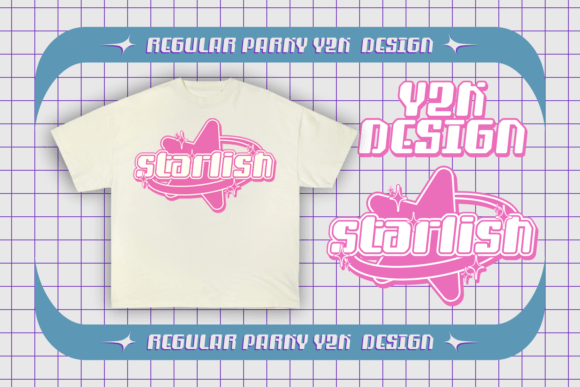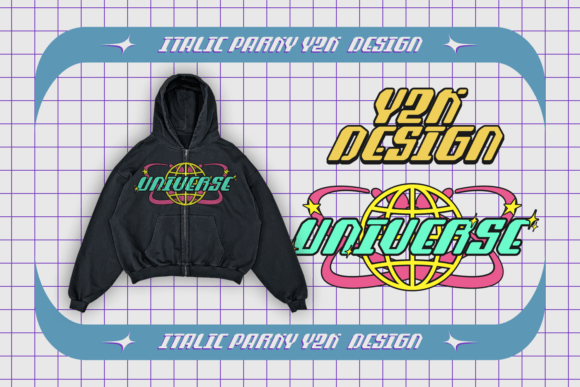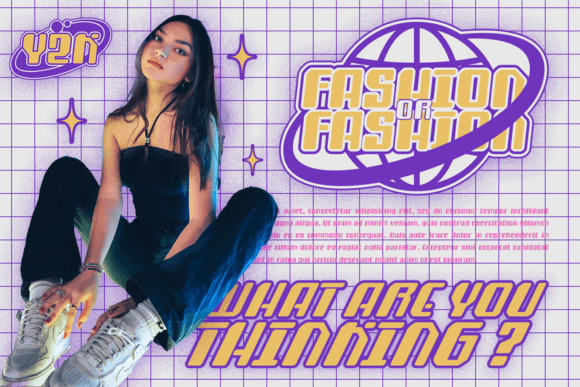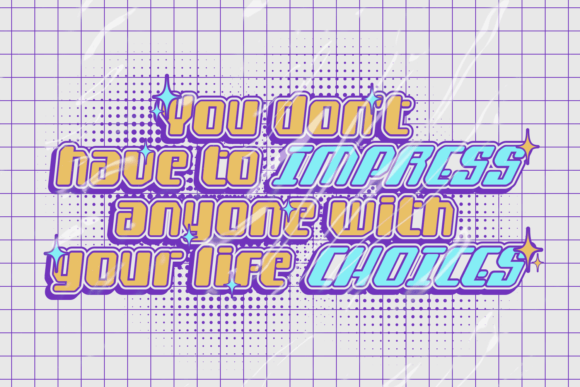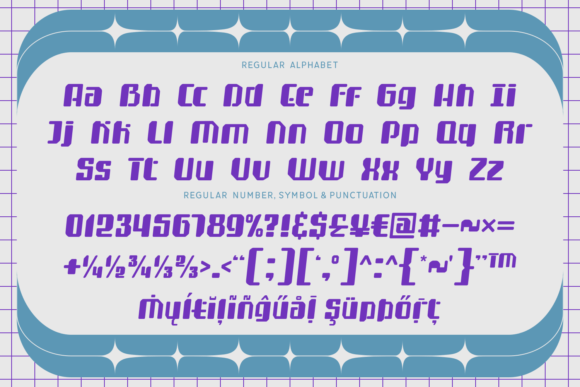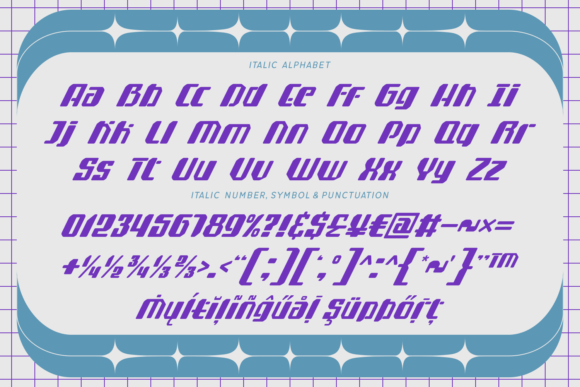
Introduction to Parky Font
Parky is a cutting-edge display font that brings a futuristic touch to any project.
With its sleek and futuristic design, each letter is crafted to convey a sense of innovation and sophistication Perfect for technology-related designs, branding, and editorial.
Key Features of Parky Font
Why Choose Parky Font?